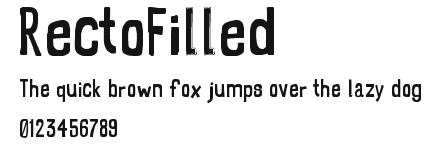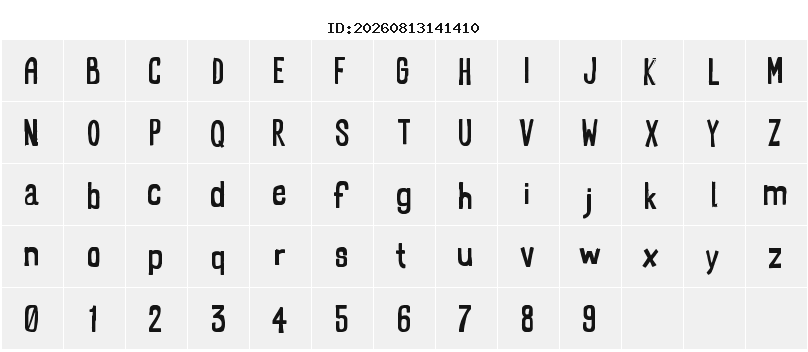
• Font Name: RectoFilled
• Full Font Name: RectoFilled
• PostScript Name: RectoFilled
About RectoFilled.ttf
RectoFilled.ttf is a modern, elegant sans-serif font designed for ultimate readability and visual harmony. Perfect for branding, headlines, web design, and print materials.